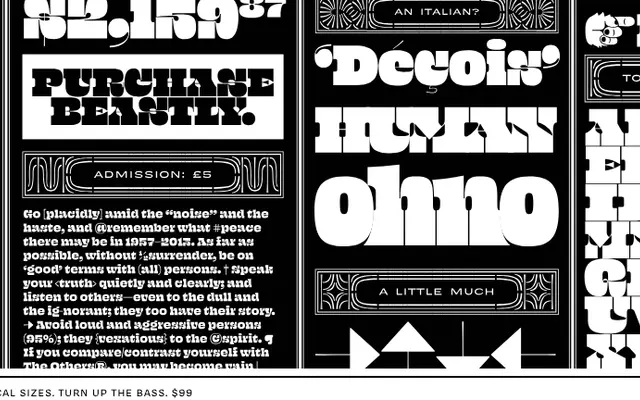
Beastly
A Lubalin-era display serif originally commissioned for the Lubalin 100 centenary project, offered in nine optical sizes.
Designed as a custom typeface for the Lubalin 100 project with art director Sasha Tochilovsky, Beastly draws on the lettering traditions of Herb Lubalin's studio without directly aping any single existing face. Nine optical sizes from 12 Point to 72 Point each carry subtly adjusted spacing and weight to suit their intended setting, from running text to large-scale poster work. Named after a Vulfpeck track from their 2011 debut EP, it sits comfortably in editorial, packaging and poster contexts that want the energy of 1970s New York graphic design.
A display typeface rooted in Herb Lubalin-era lettering, with tightly spaced, optically scaled letterforms and characteristically heavy, expressive serifs typical of 1970s graphic design.